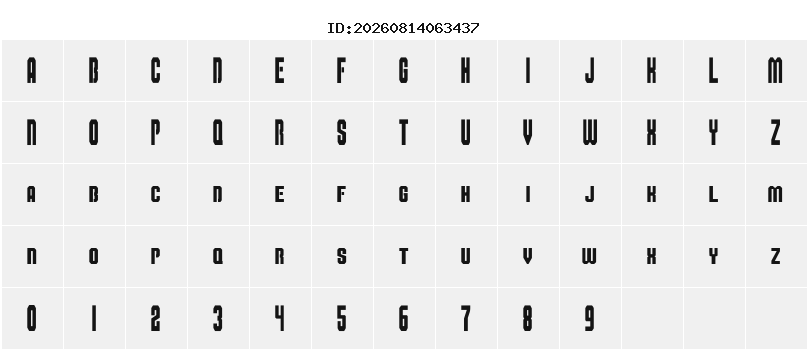
About Super Mario Bros Alphabet.ttf
Super Mario Bros Alphabet.ttf is a modern, elegant sans-serif font designed for ultimate readability and visual harmony. Perfect for branding, headlines, web design, and print materials.